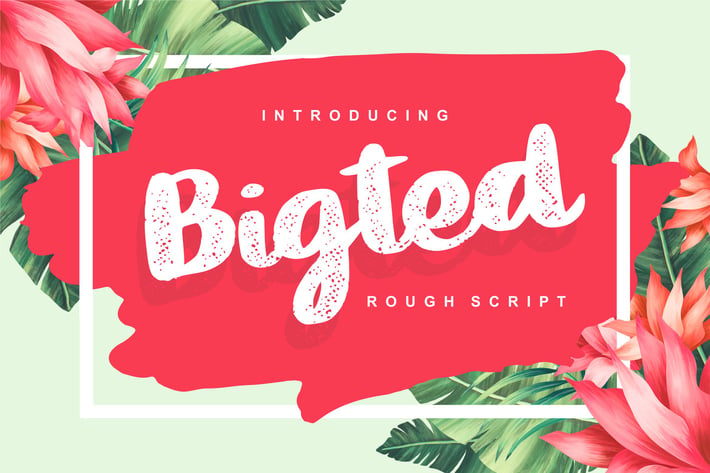
Bigted | Rough Script Font
Bigted | Rough Script Font with a calligraphy style, So beautiful on invitation like greeting cards, branding materials, business cards, quotes, posters, and more!